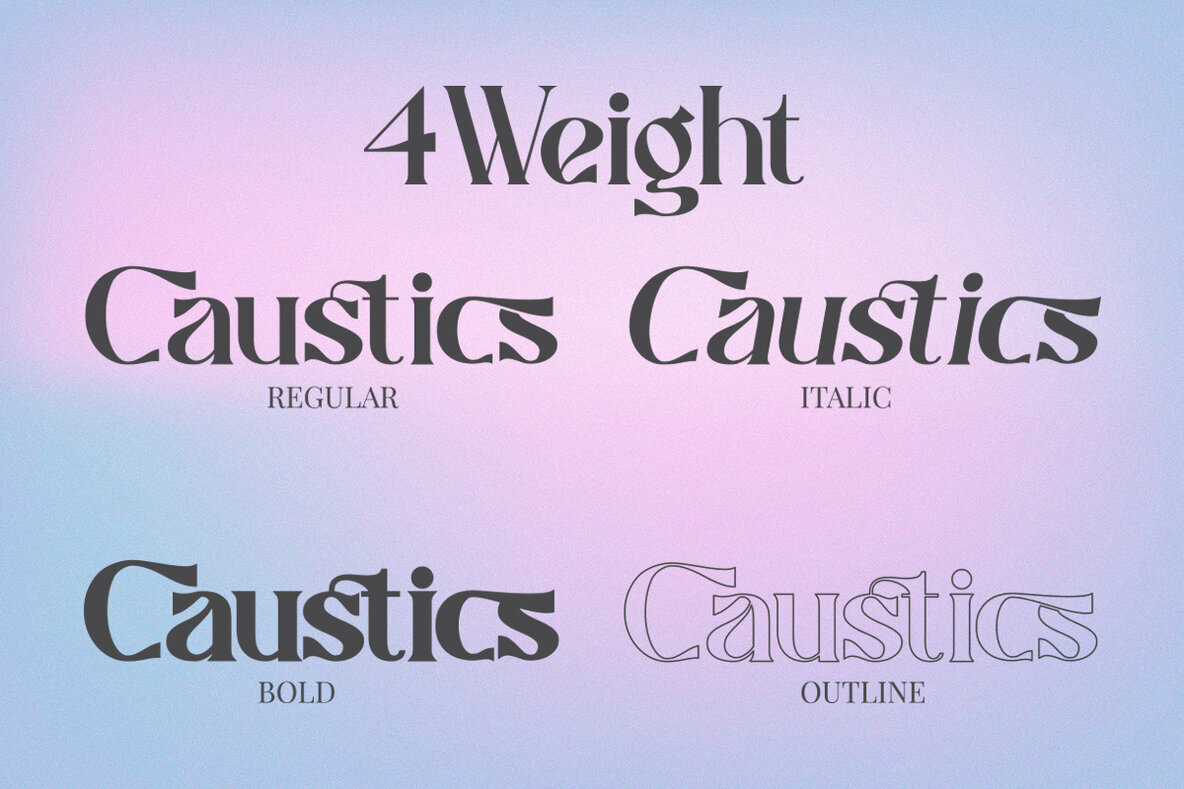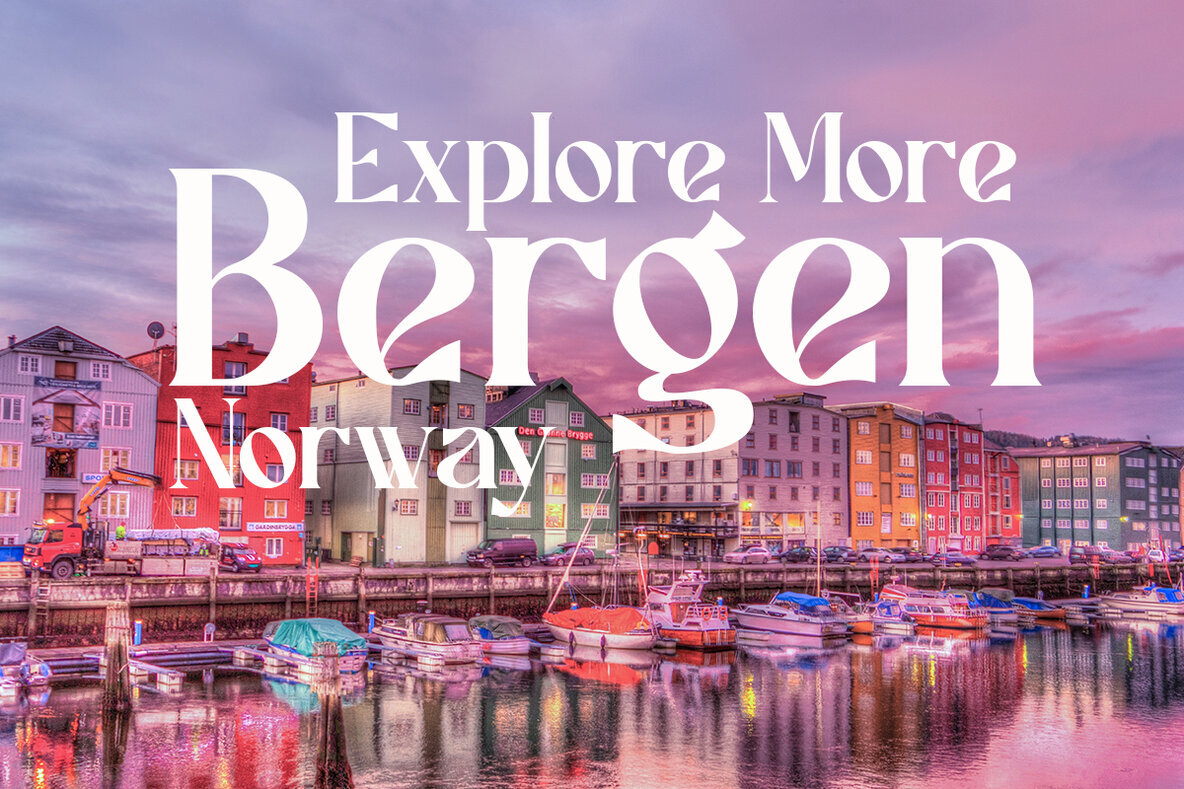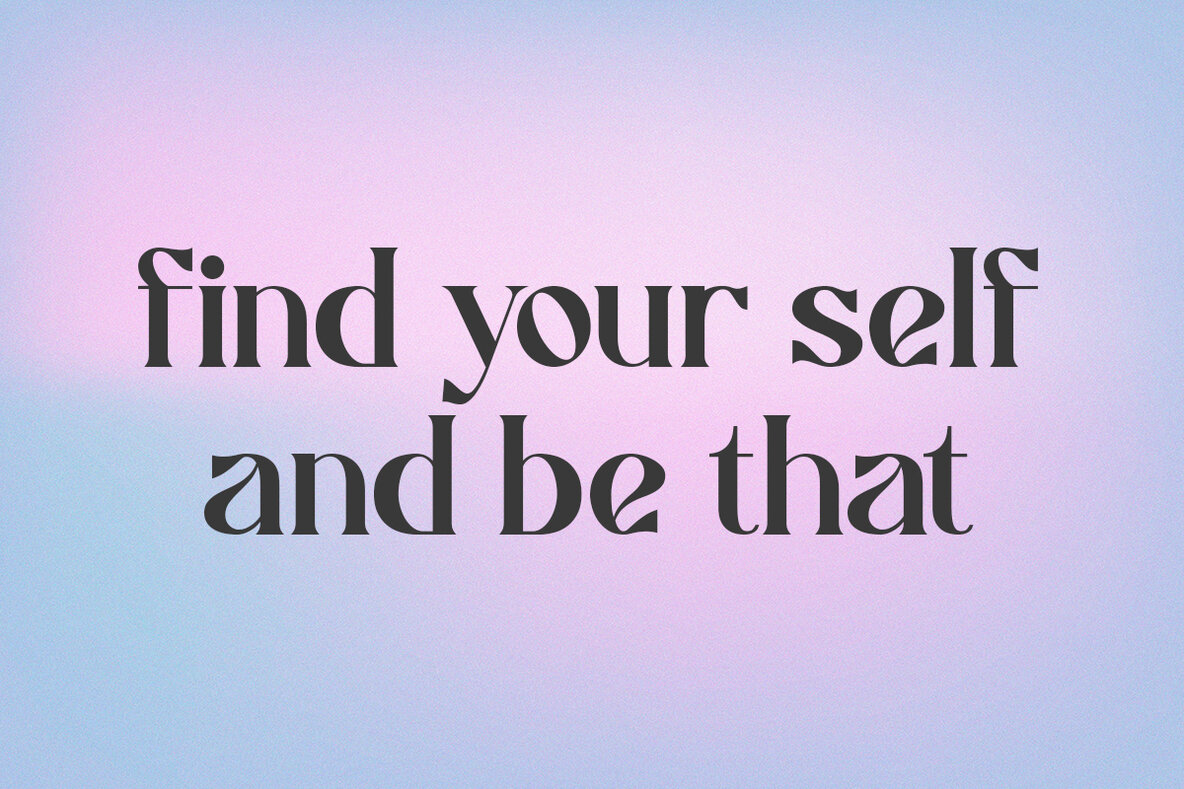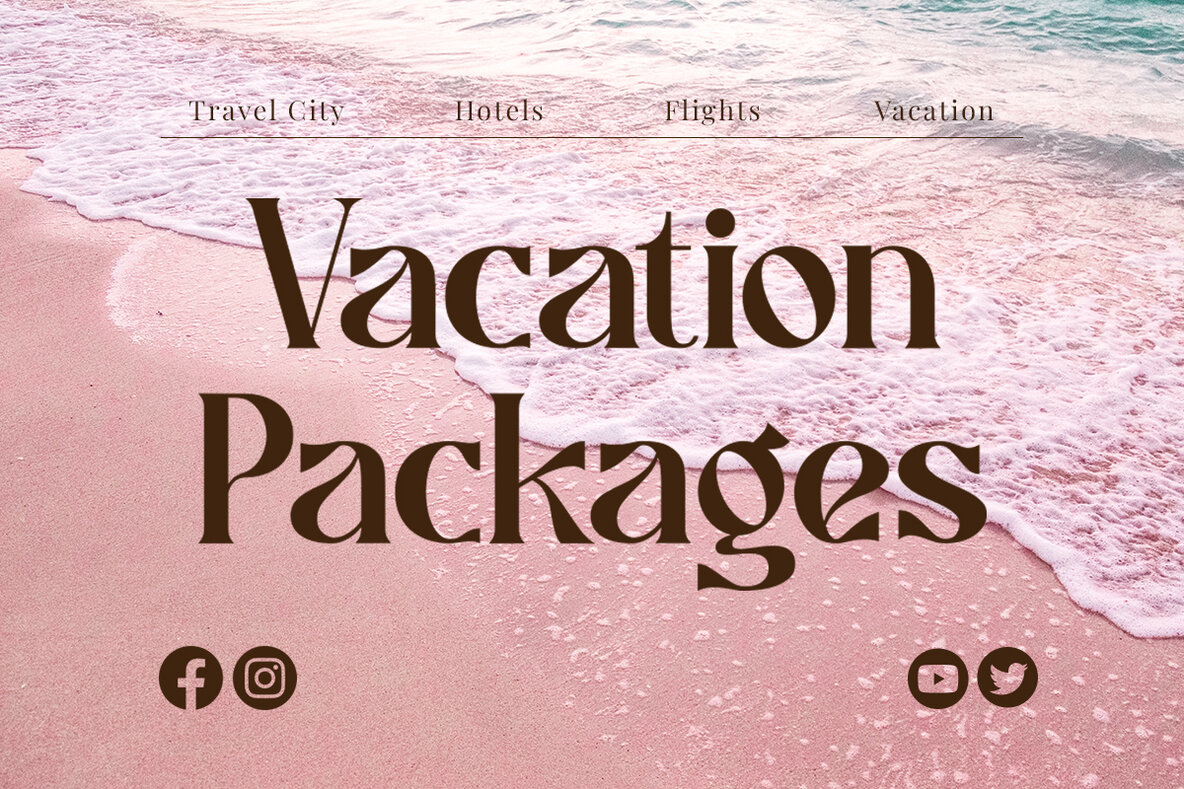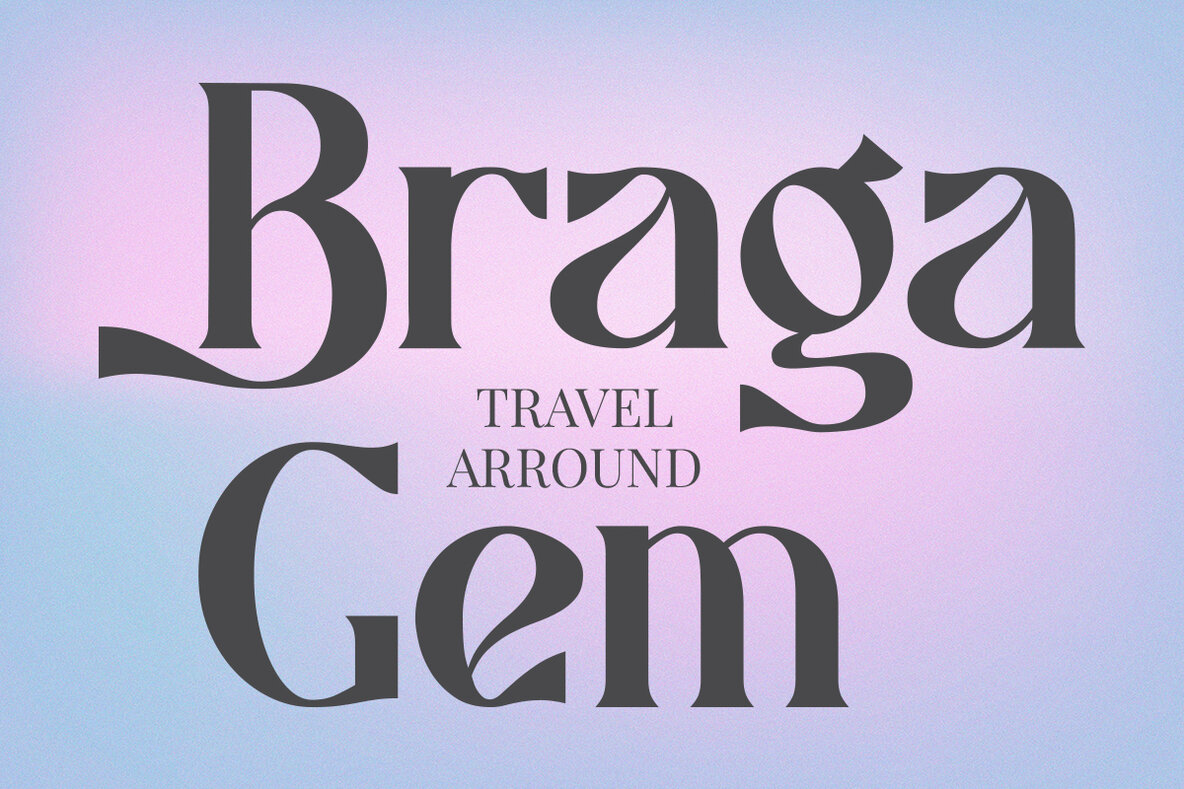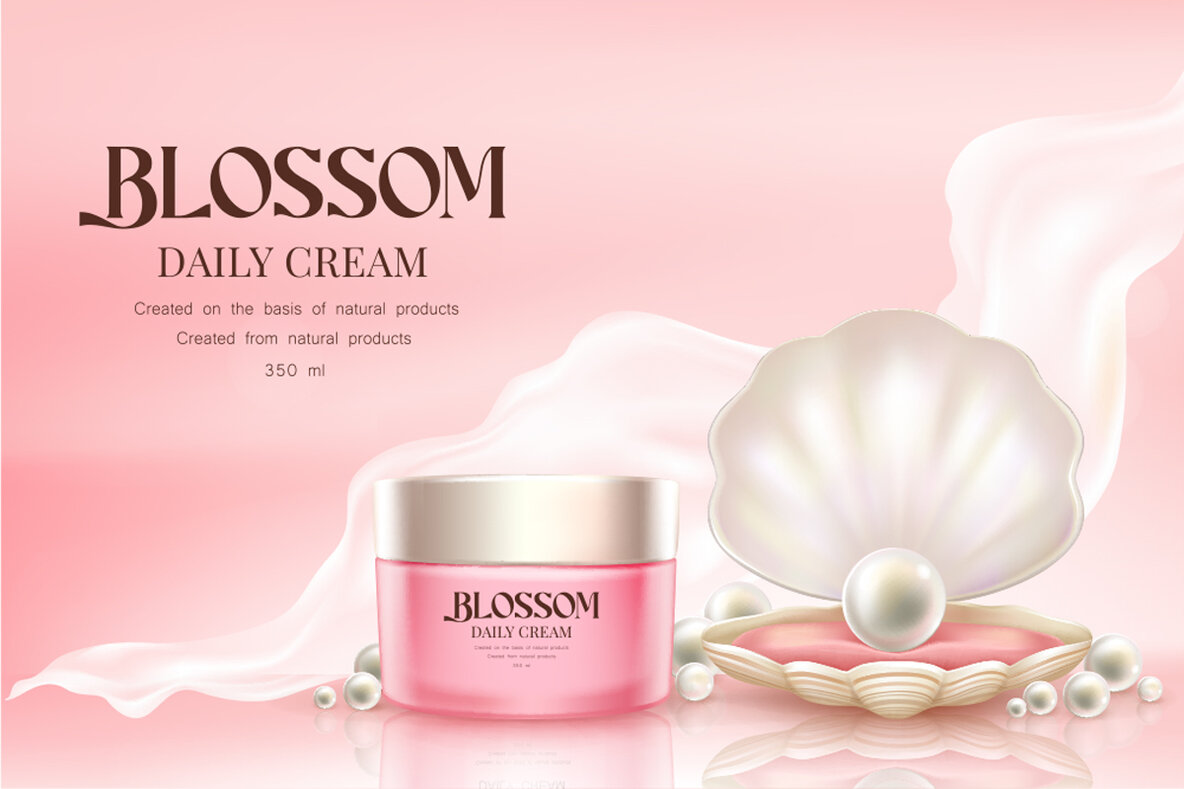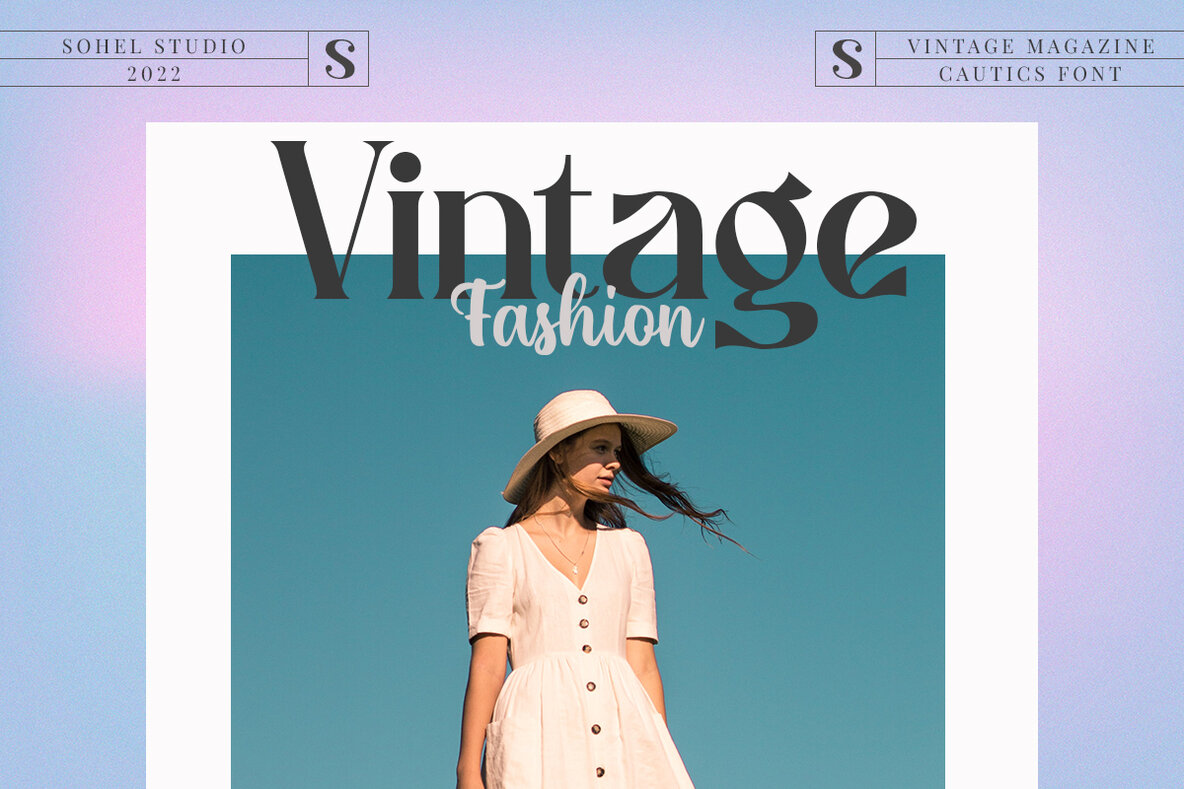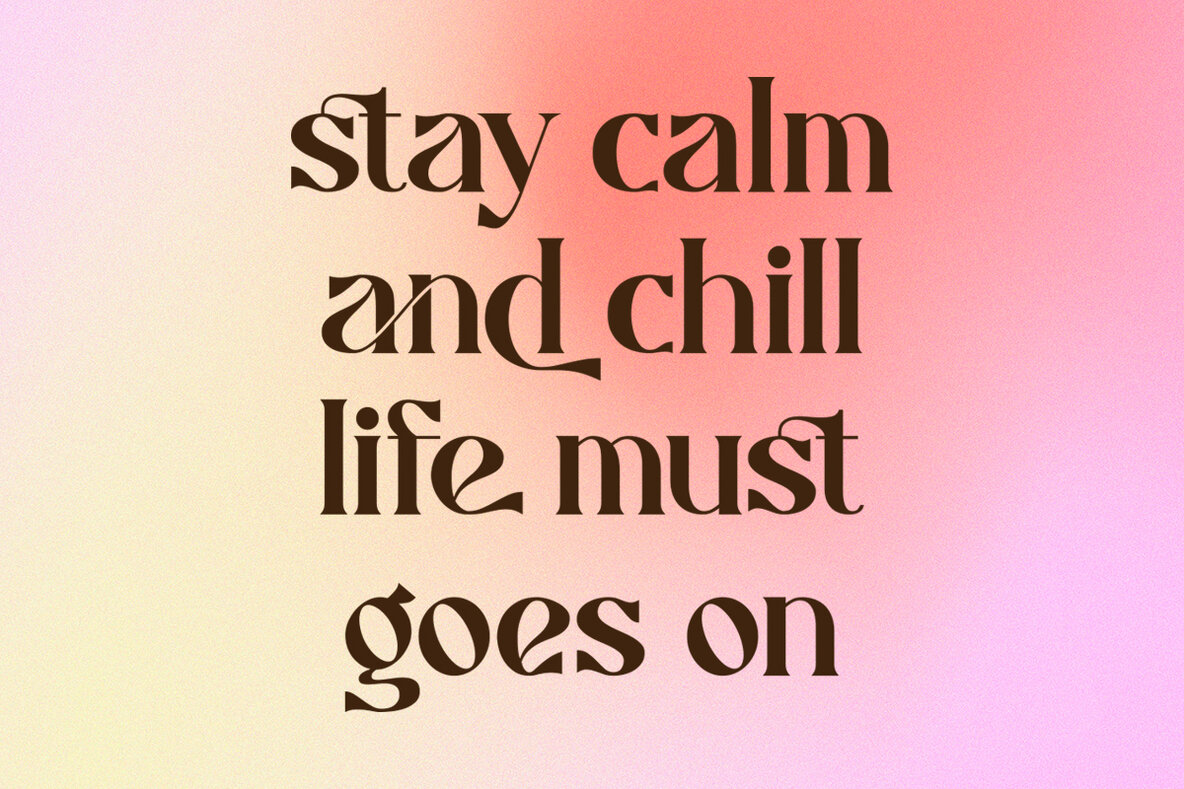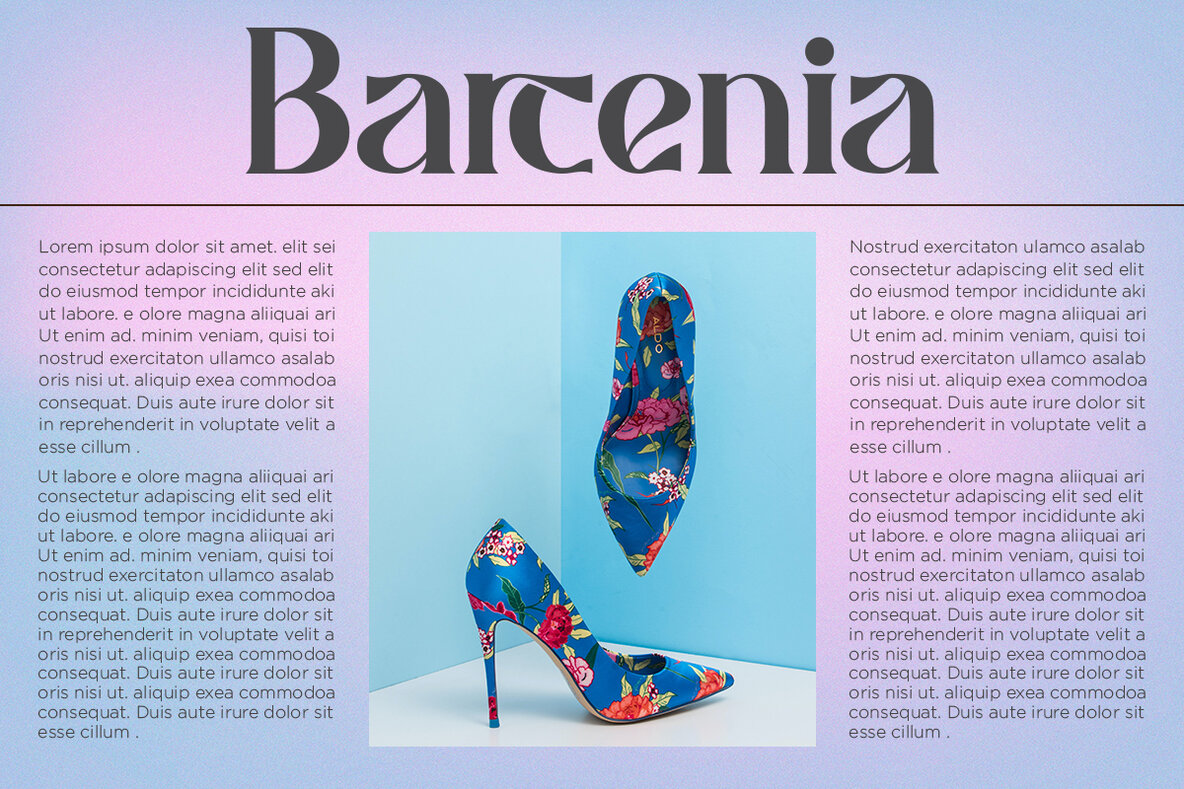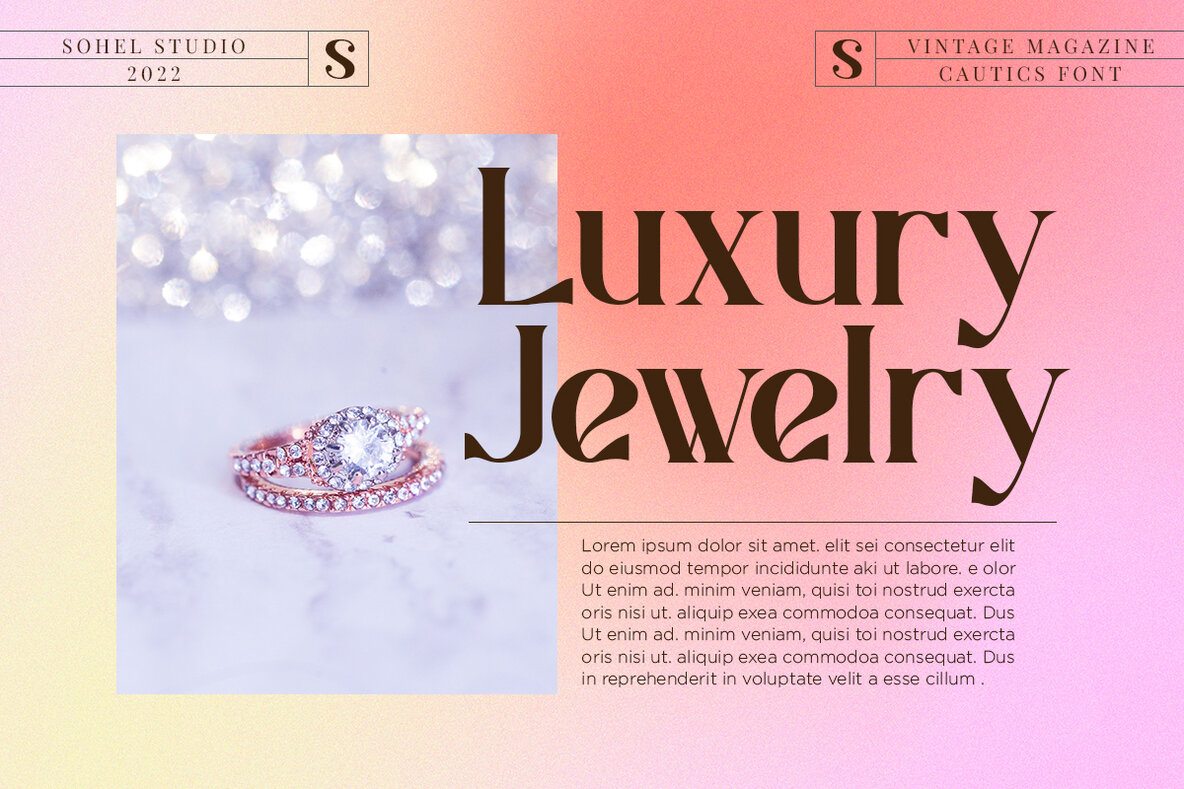
Caustics Font
Say hi to “Caustics” A serif modern and classic typeface that has own unique style & modern look. there are 4 different styles that you can apply in your design projects. This typeface is perfect for an elegant & luxury logo, book or movie title design, fashion brand, magazine, clothes, lettering, quotes, social media posts and so much more. Caustics Features: • 4 Weights font (Regular, Italic, Bold, Outline) • Uppercase And Lowercase • Numerals & Punctuation • Accented characters • Format File: TTF,OTF • Multilingual Support